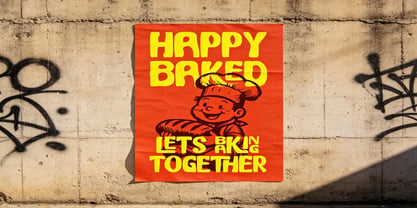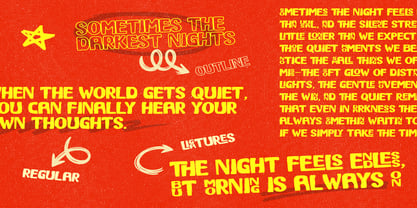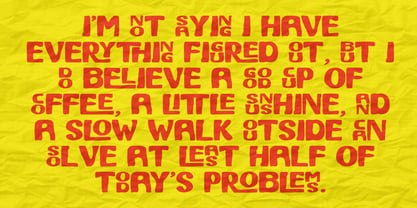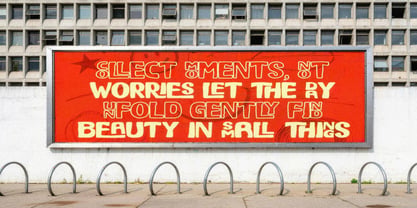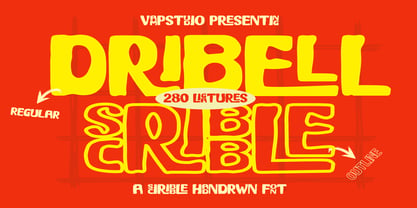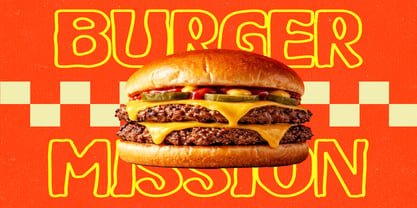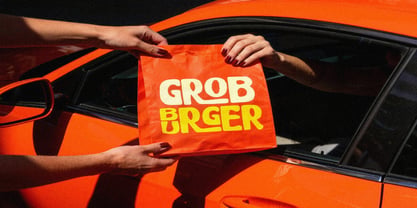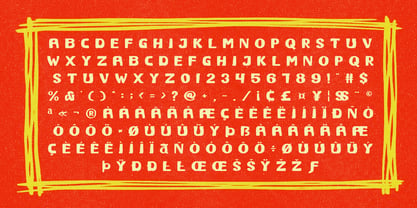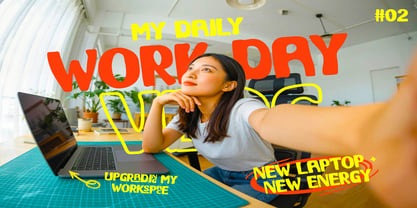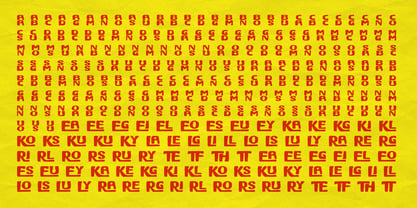
Dribell Scribble
by Vampstudio
The Dribell Scribble Font Family was designed by Irfan syah and published by Vampstudio. Dribell Scribble contains 2 styles and family package options. More about this family
Dribell Scribble is a fun handdrawn display font featuring playful irregular shapes and charming imperfect character. Created for energetic and expressive typography, this font is perfect for children’s products, fun branding, posters, café menus, packaging, YouTube thumbnails, and social media graphics.
Its handcrafted personality brings warmth and creativity to every design.
Key Features
• Handdrawn display style
• Fun playful letterforms
• Uppercase & lowercase
• Multilingual support
• Ideal for kids & creative branding
• Perfect for posters & packaging